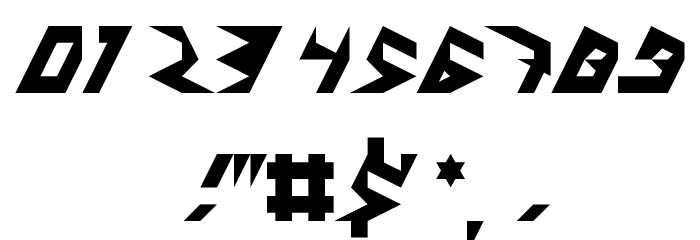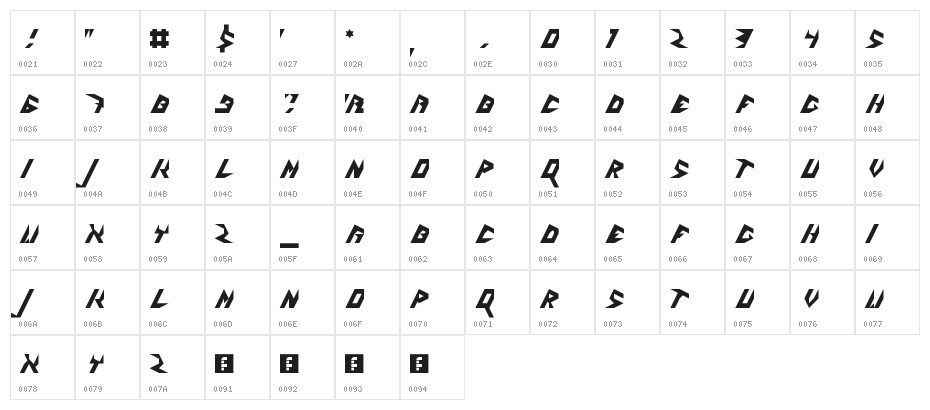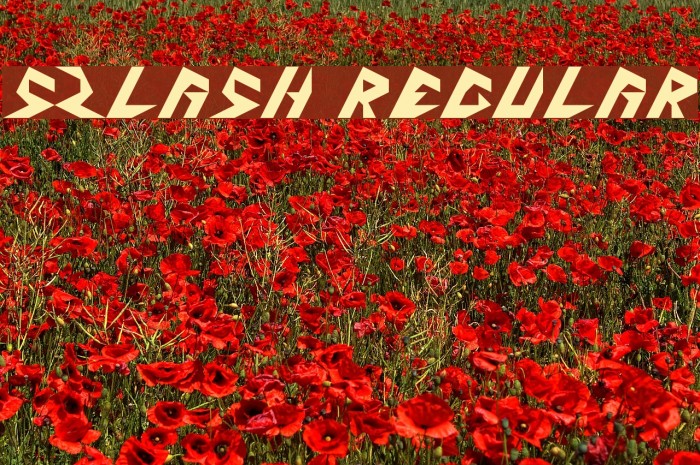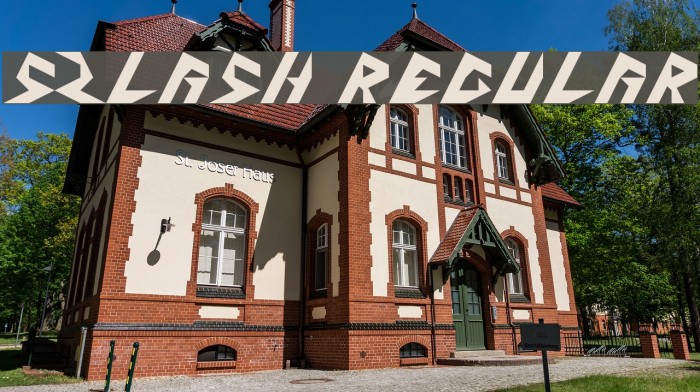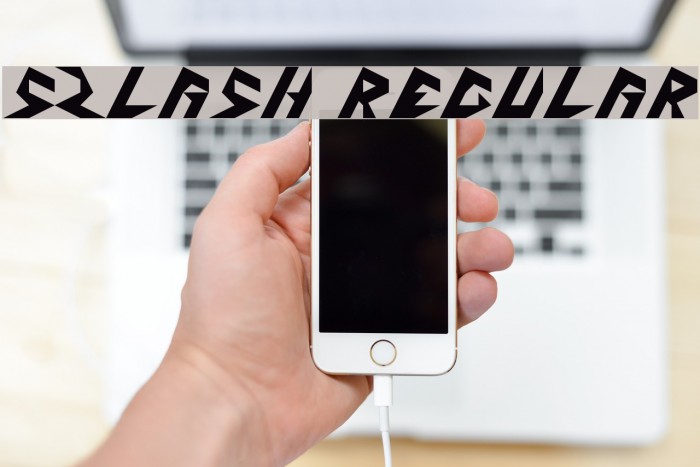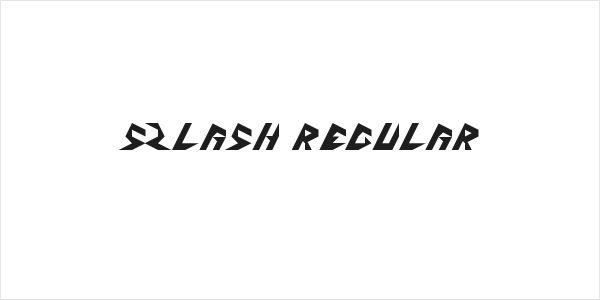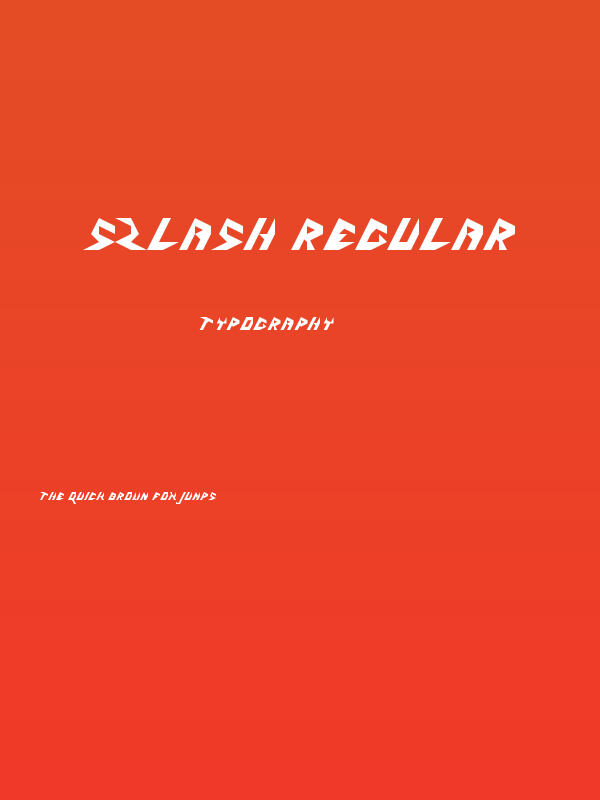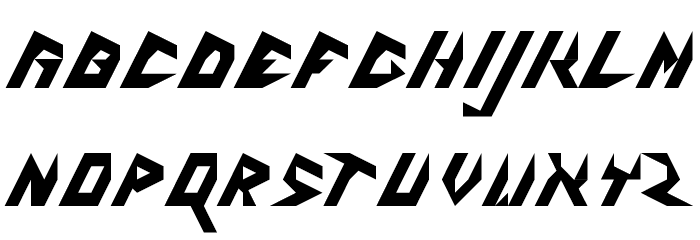
5Zlash Regular Font
5Zlash Regular Description
This font features a bold, angular design with sharp, geometric edges that create a dynamic and aggressive appearance. Each character is crafted with a sense of motion and energy, making it stand out with its unique style. The uppercase and lowercase letters maintain a consistent angular theme, while the numbers and special characters complement the overall aesthetic. The font's distinct look is ideal for projects that require a strong visual impact, such as branding or promotional materials.
| Overall Style | Modern, Dynamic |
| Proposed Projects | Ideal for branding, logos, sports team merchandise, video game titles, and promotional materials. |